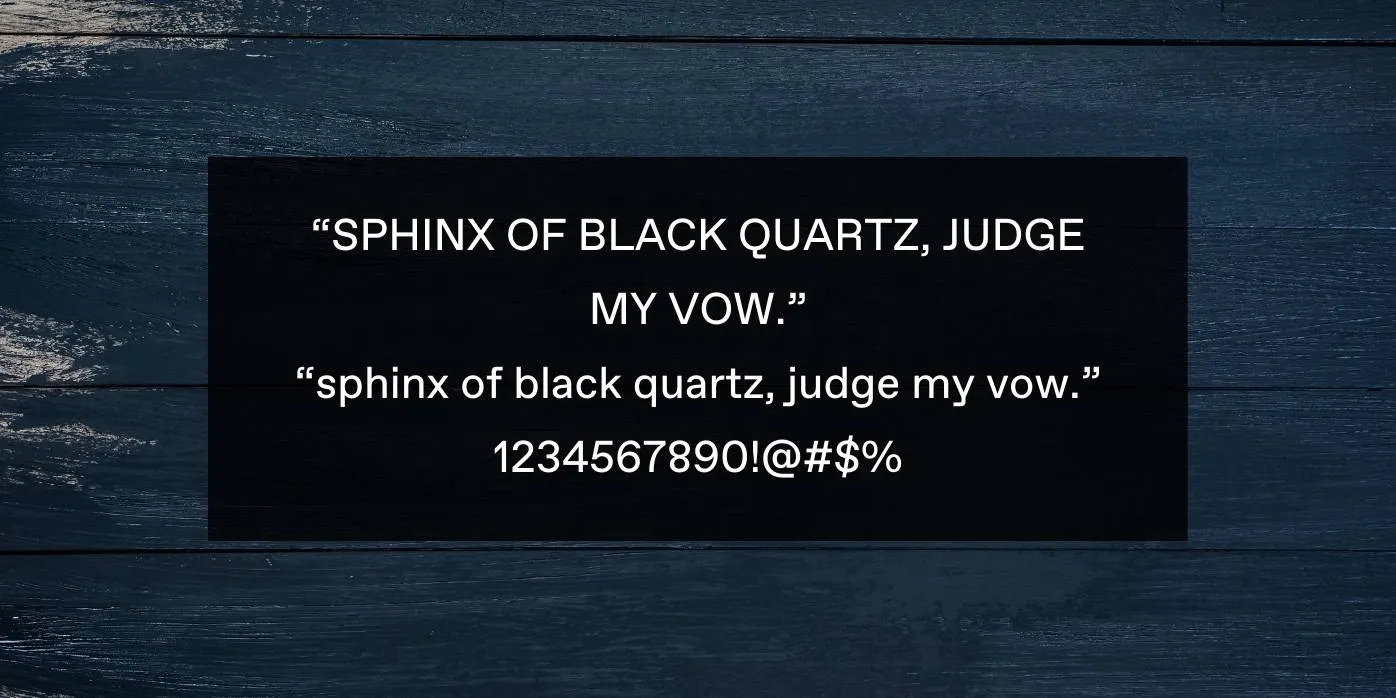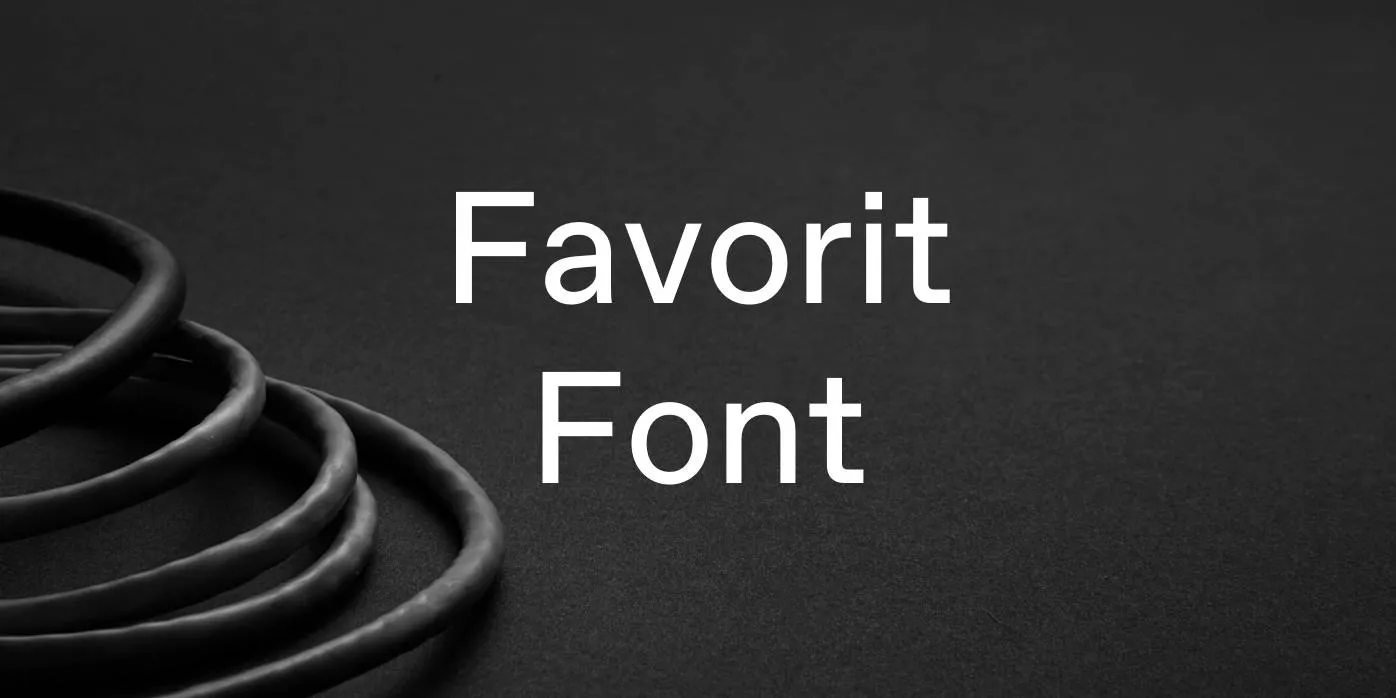
Favorit Font
Here, we introduce Favorit Font which belongs to the sans serif family. This is a modern typeface that has been growing in popularity in recent years and is commonly used for website design, logos, and branding. Favorit Typeface is available in both regular and bold versions, as well as italics. The font includes upper and lowercase letters, numbers, and symbols.